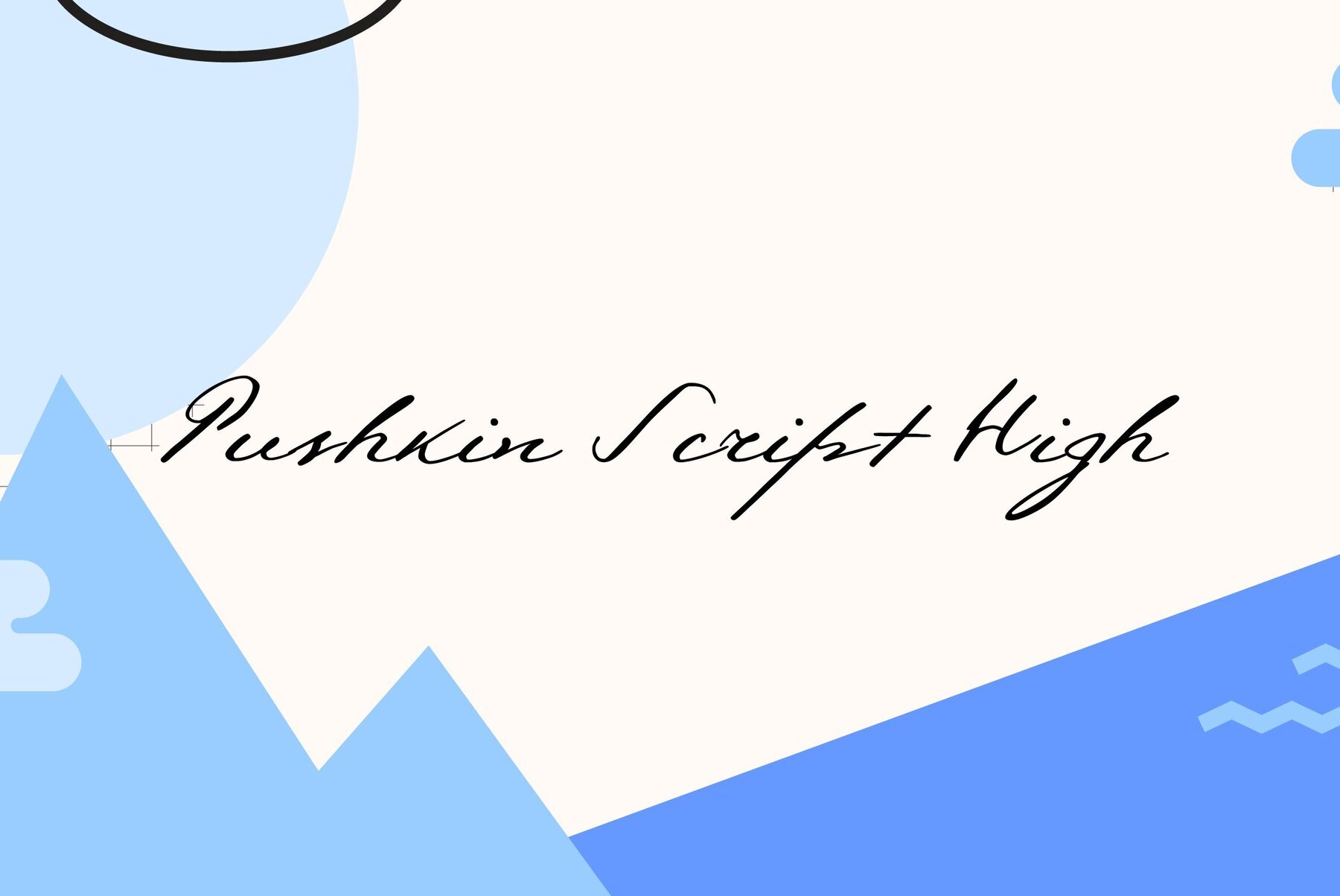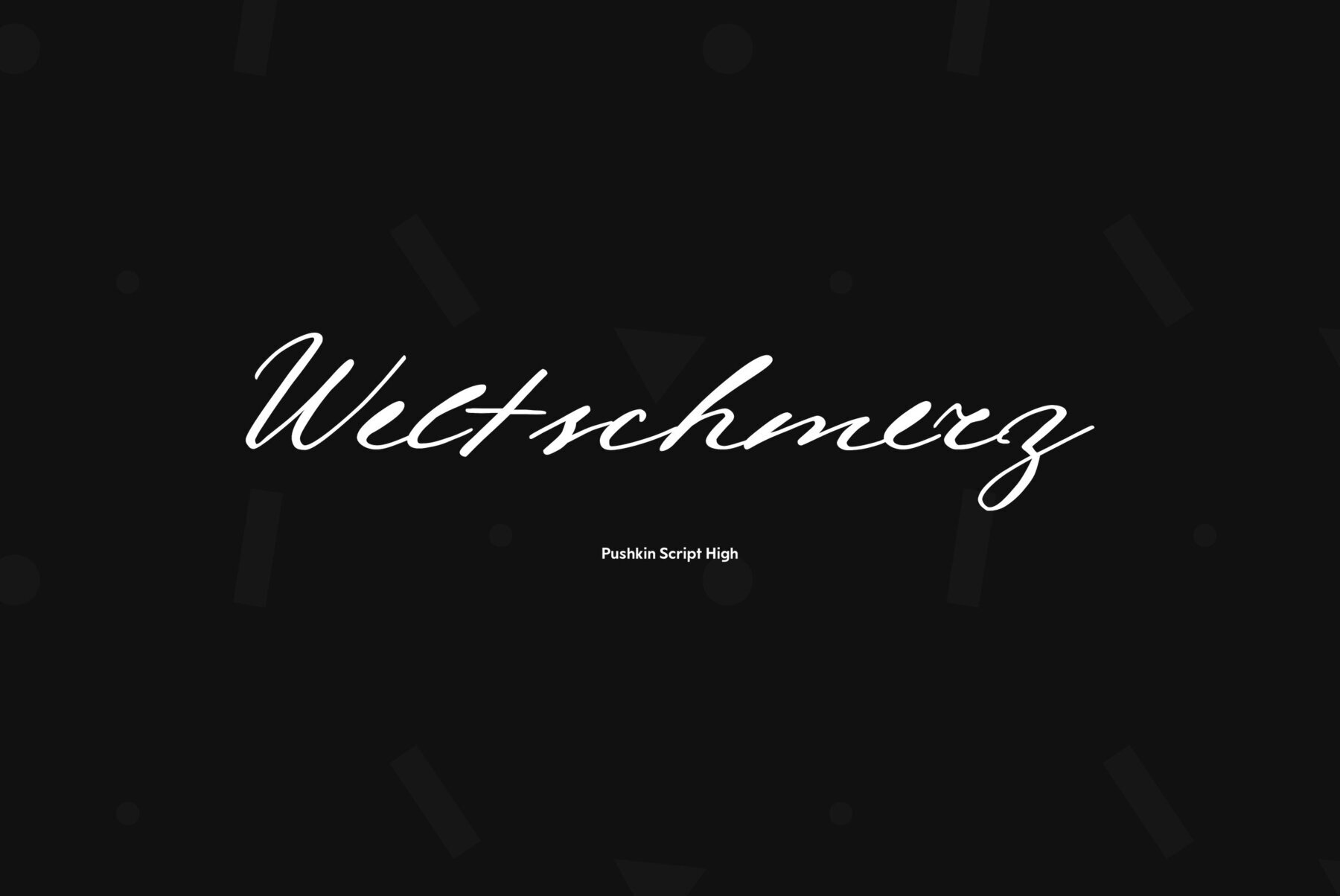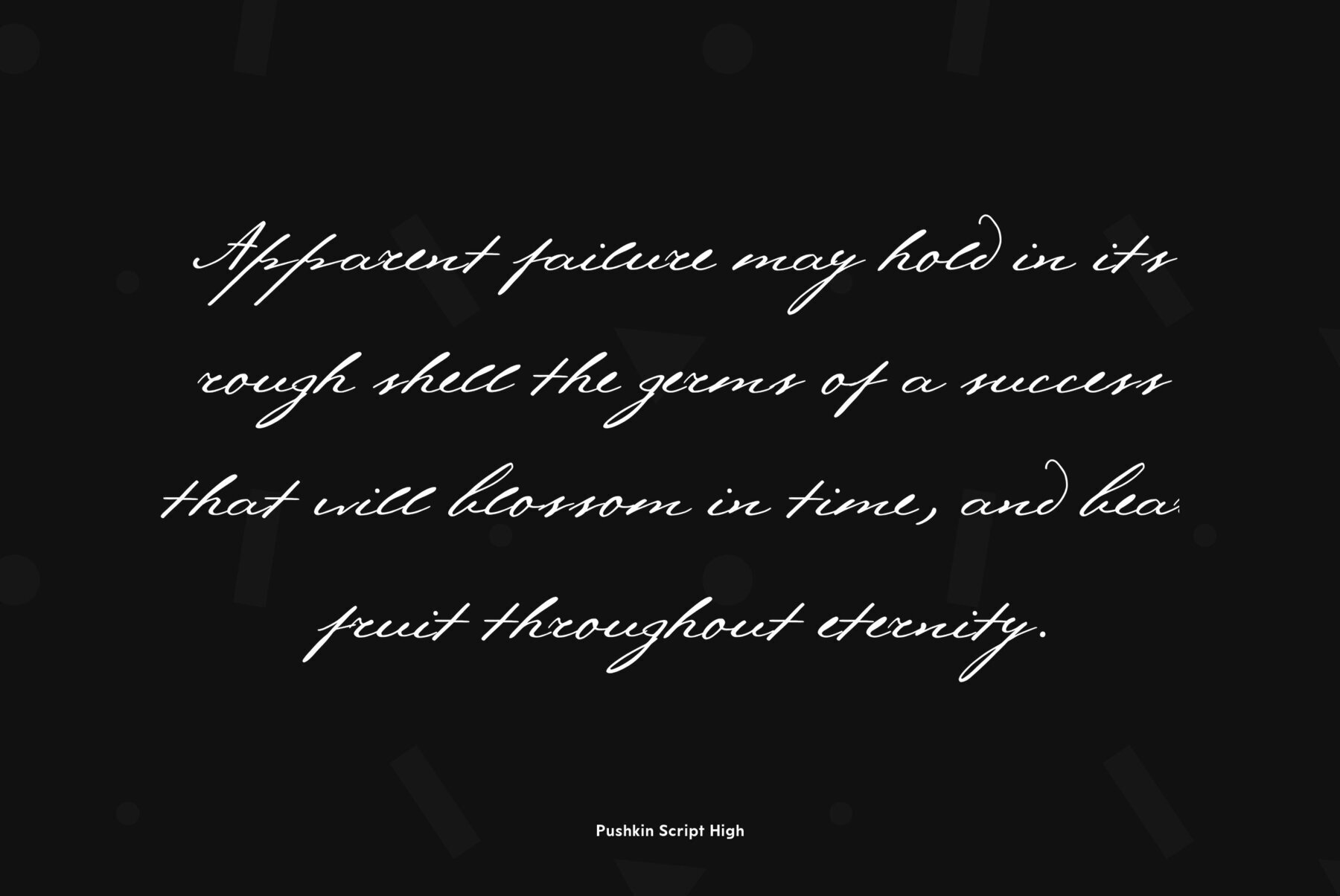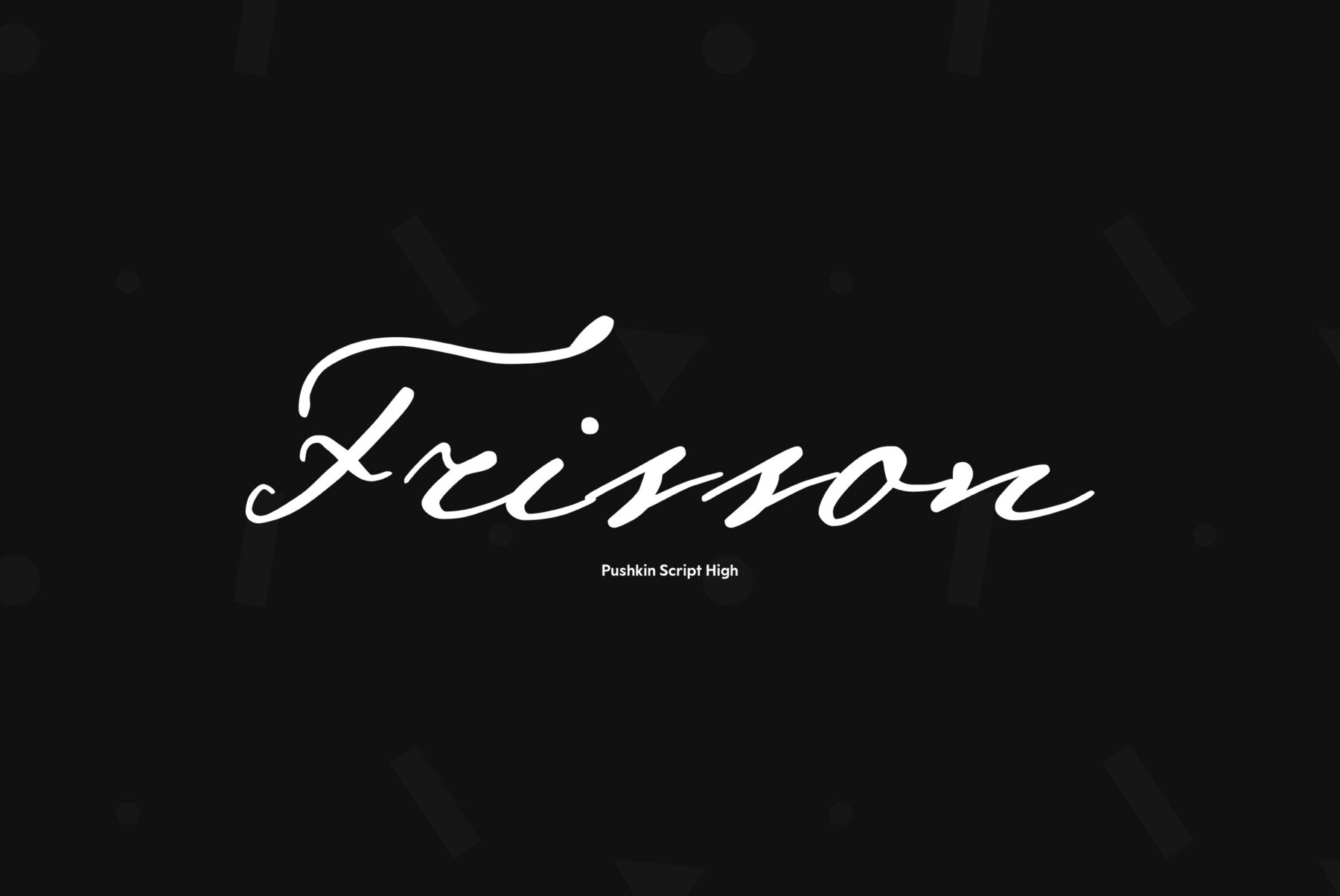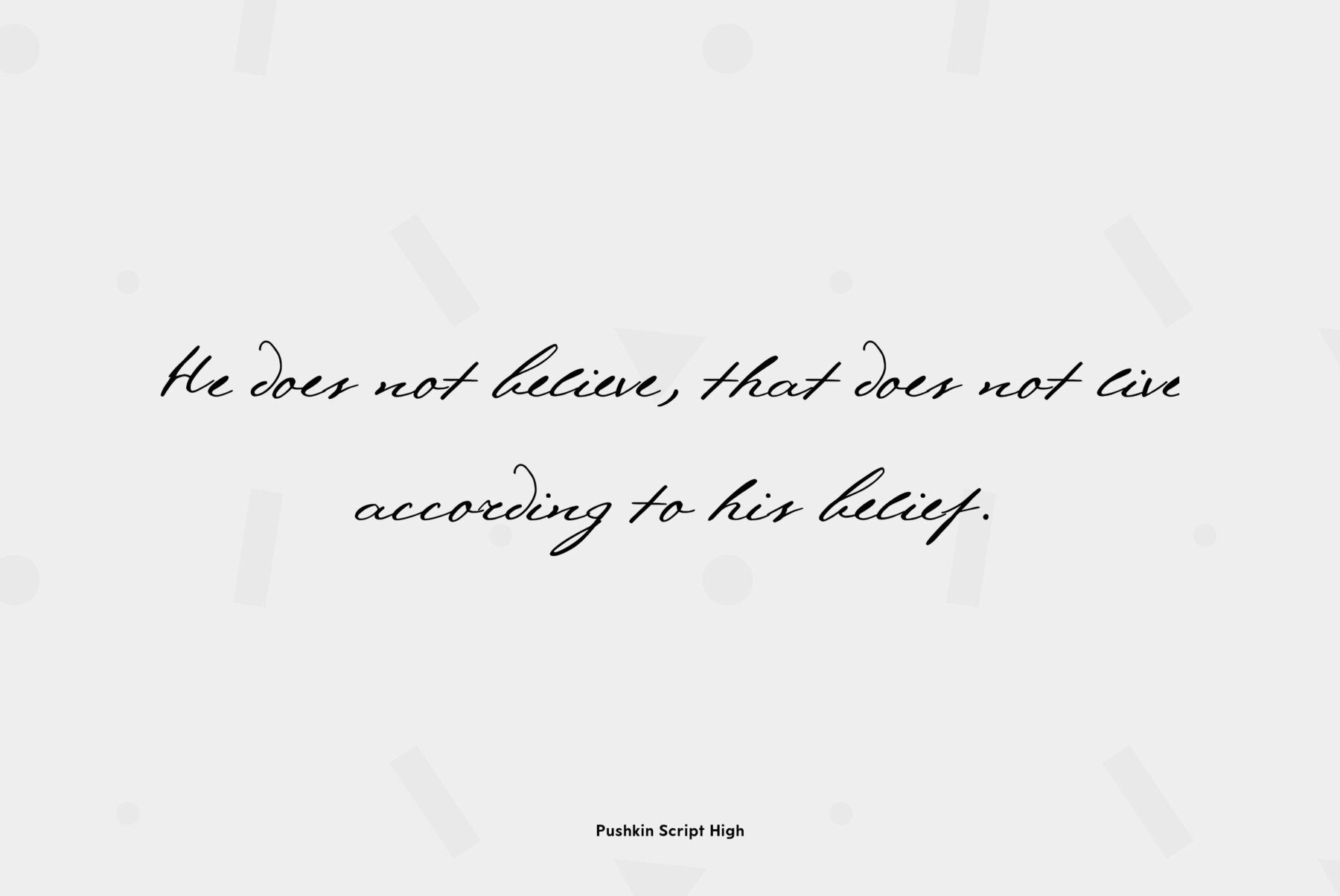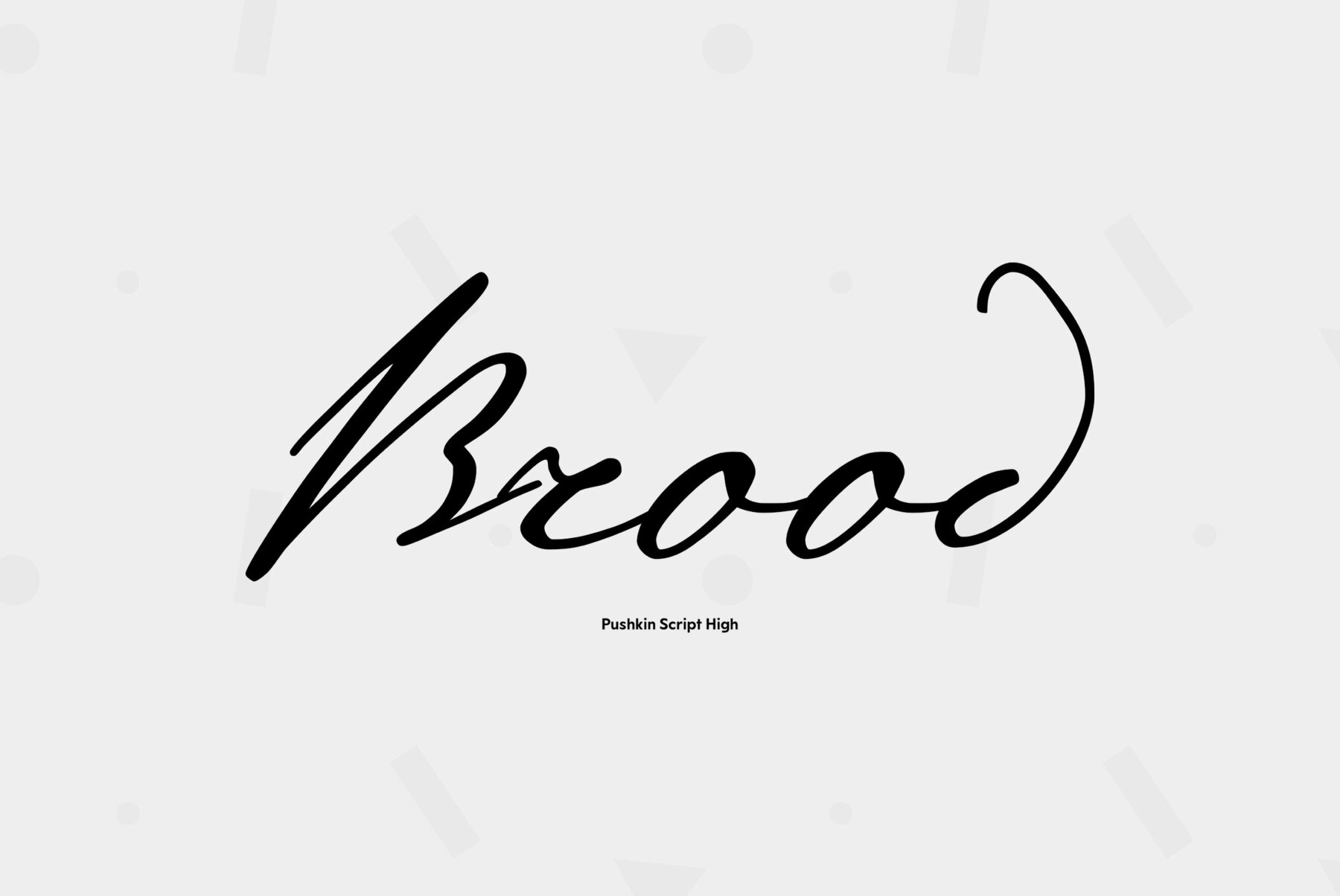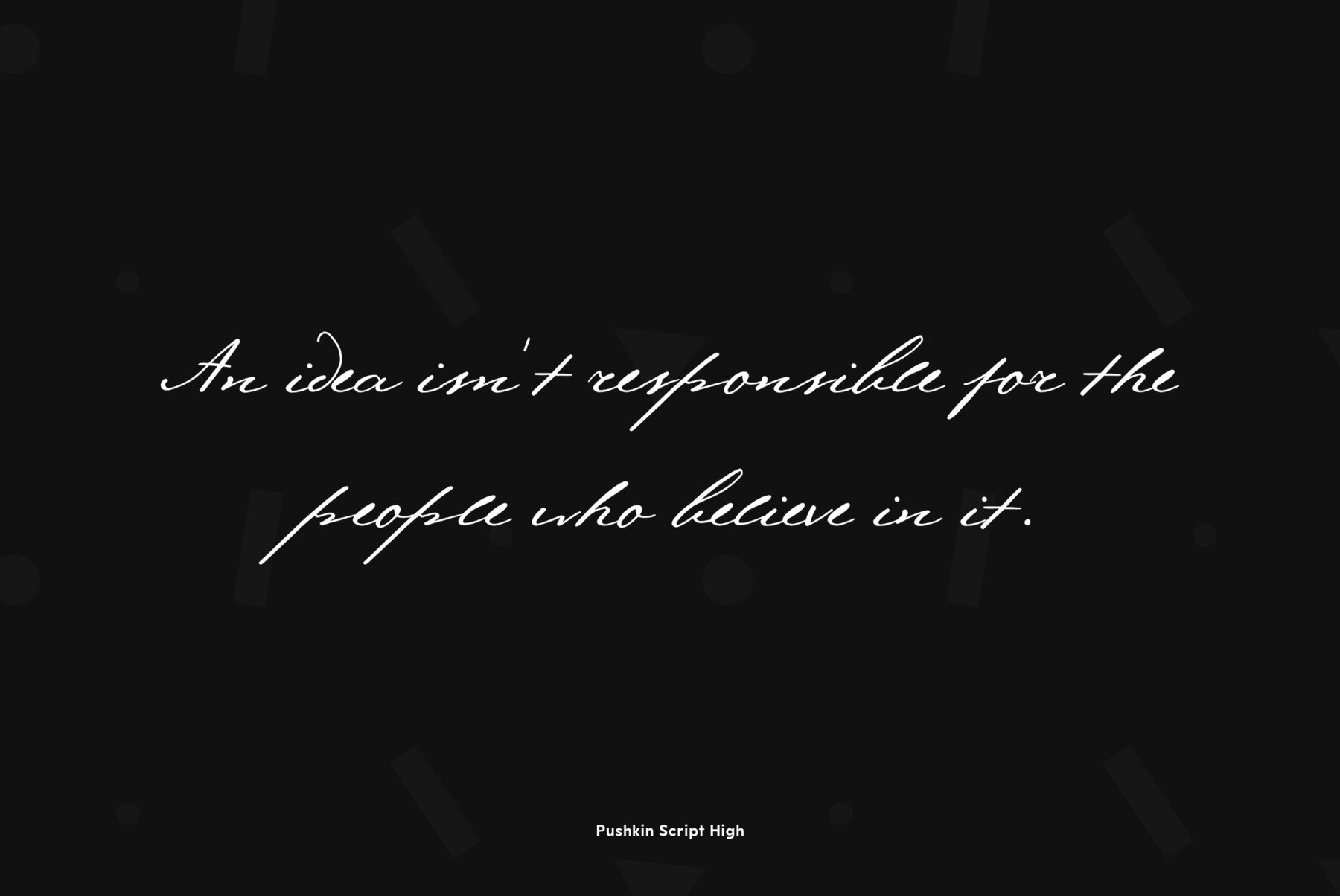
Pushkin Script High Pushkin Script High
Designed for ParaType in 1999-2004 by Gennady Fridman. Pushkin type family is based on the autographs of Alexander Pushkin, the eminent Russian poet (1799-1837). Alternative letters typical for Pushkin's hand are included. There are several variants of Pushkin's hand. Pushkin Script in 2 styles was based on the manuscripts of 1815 and covers Western and Russian character sets. Pushkin One was developed on the basis of thoroughly written documents. Pushkin Two imitates small but nevertheless rather legible hand. Pushkin Three in 2 weights was created on the basis of the autographs distinguished by sprawling hand. Pushkin One, Two and Three series covers just a Russian character set. This set of Russian fonts was amended by Pushkin French font that is based on French writings and covers Western character set.